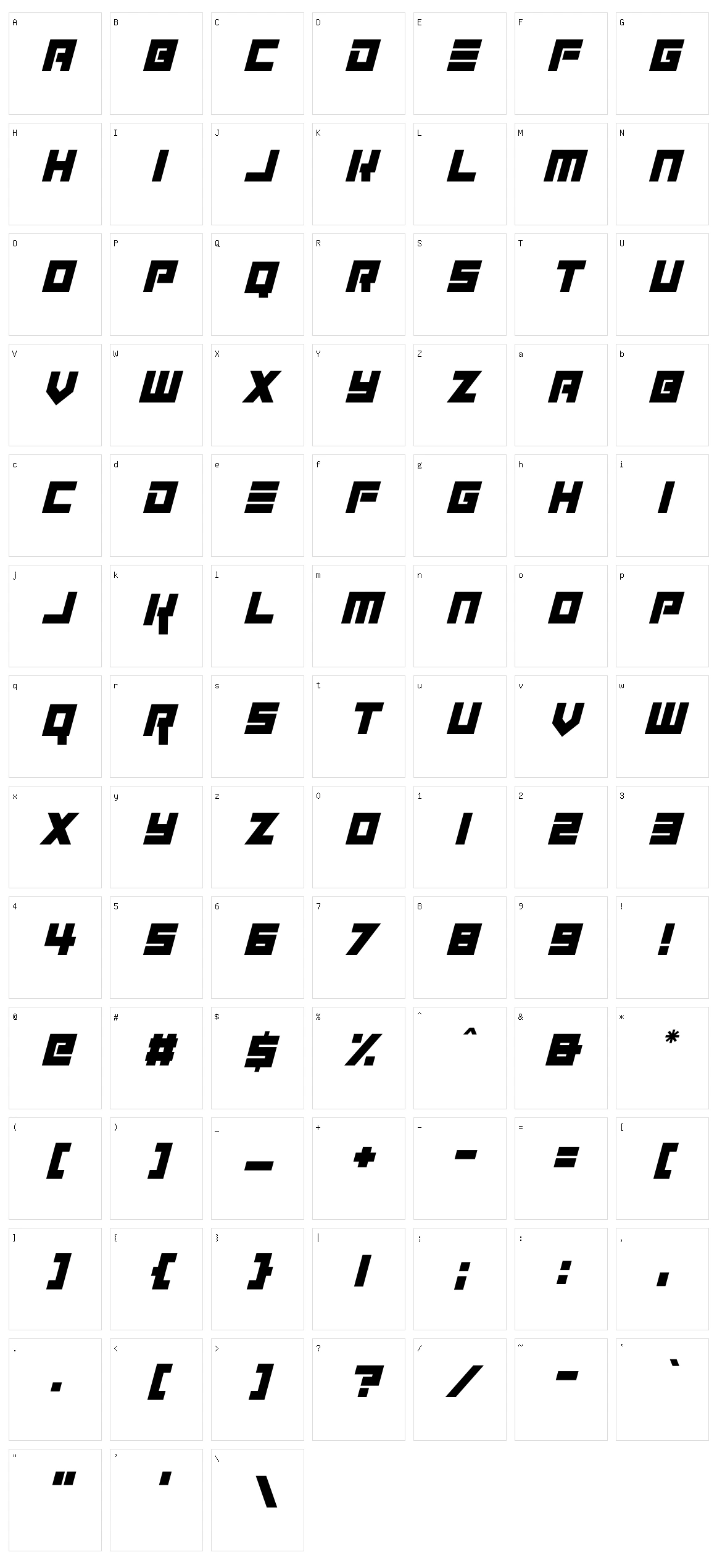
The free font Elektronik is carefully designed by Hawtpixel, showcasing a thoughtful balance of creativity and usability and falls under the Square font style. When you download the ZIP file, it contains only 36.86 KB of font files, making it lightweight and quick to download. Please review the license details below to understand permitted usage and distribution rights. If license information is not available, we recommend using this font for personal projects only or contacting the author directly for commercial usage permissions.